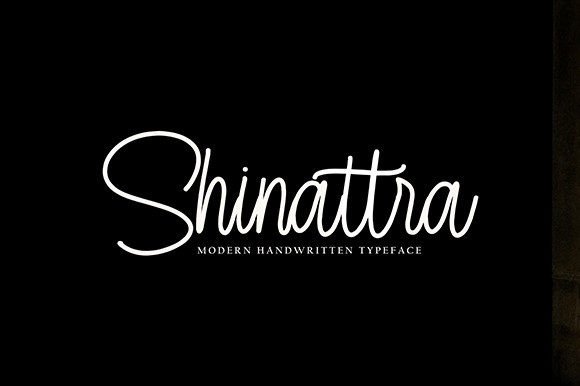
Introducing Shinattra Font: The Epitome of Casual and Fresh Handwritten Elegance
Step into the world of Shinattra Font, a captivating script font family that embodies the essence of free-flowing, handwritten beauty. Expertly crafted by Pineungtype and Missinklab, this font is a masterpiece that will transform your creative projects into works of art.
With its effortless strokes and captivating curves, Shinattra Font adds a touch of personal charm and authenticity to every design. Its casual and fresh style evokes a sense of spontaneity and individuality, making it the perfect choice for projects that demand a natural and heartfelt touch.
Unleash your boundless creativity with Shinattra Font, a font that knows no limits. Its versatility knows no bounds, making it suitable for a wide range of projects, from personal journaling and heartfelt letters to eye-catching social media posts and professional presentations.
Whether you're a seasoned designer seeking to elevate your work or a beginner just starting your creative journey, Shinattra Font is the perfect companion. Its user-friendly design makes it easy to master, ensuring that even those with limited experience can create stunning designs effortlessly.
As a font inspired by the beauty of handwritten notes, Shinattra Font brings a sense of warmth and intimacy to your digital creations. It's as if each letter was carefully penned with love and intention, creating an emotional connection between your words and your audience.